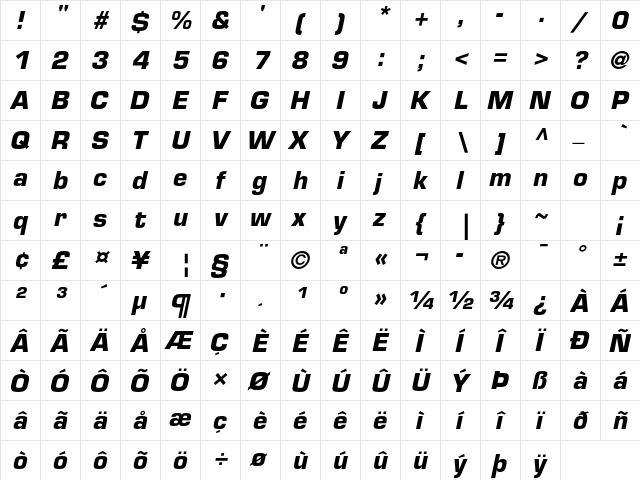
Eurostile LT Std Bold Oblique Font Preview
| Designer | Aldo Novarese, A. Butti |
Design Context for Eurostile LT Std Typeface
Eurostile LT Std offers clean, dependable letterforms without strong stylistic allegiance, making it a practical choice for designers who need flexibility. The slanted form adds forward momentum and visual energy. The heavy weight commands attention and anchors typographic hierarchies.
Pro Tip: Try Eurostile LT Std for annotation and caption copy alongside an upright companion — the contrast in angle creates a dynamic but ordered typographic system.